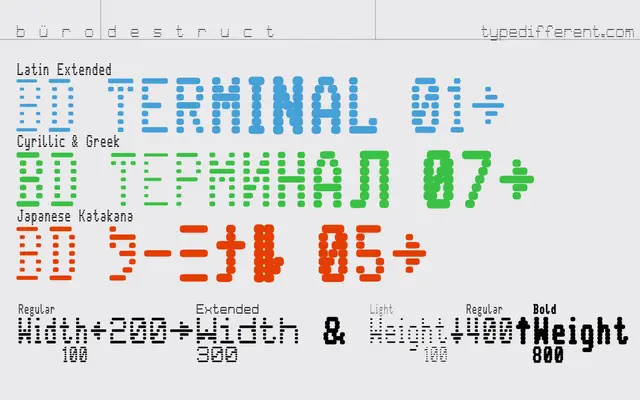
BD Terminal
A variable dot-matrix display typeface with two axes spanning weight and width, covering Latin Extended, Greek, Cyrillic and Japanese Katakana.
Built from a blotch-dot grid that evokes terminal and dot-matrix displays, the family ships as both static styles and a variable font with weight and width axes. The static cuts run across Light, Regular and Bold in standard and extended widths, while the variable version allows continuous interpolation between the two. Script coverage is broad for a display face, taking in Latin Extended, Greek, Cyrillic and Katakana for interface labels and experimental multilingual layouts.
Constructed from a grid of dots to simulate a dot-matrix terminal aesthetic, intended for display use across posters, UI and experimental layouts rather than continuous text setting.